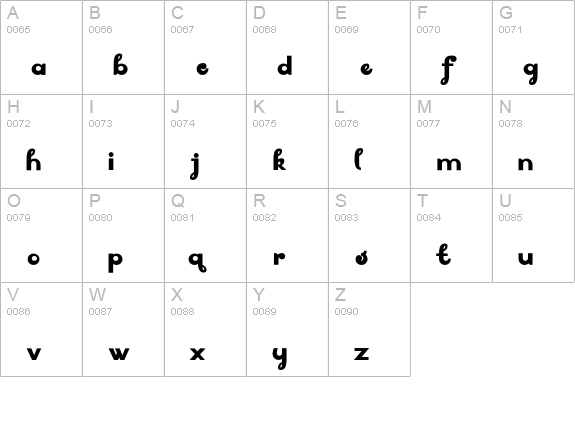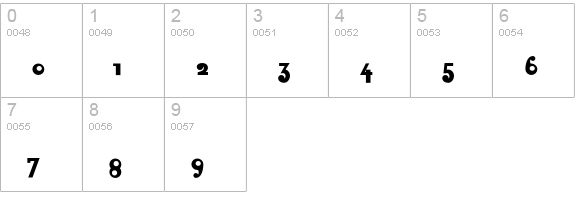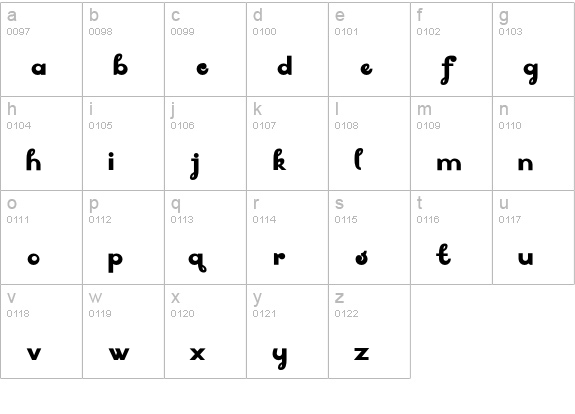
Introducing Pussy-Extra font, a stunning typeface that exudes elegance and sophistication. With its sleek and modern design, Pussy-Extra is perfect for a wide range of design projects, from branding to editorial design. This versatile font features clean lines and distinctive curves that add a touch of flair to any text. What sets Pussy-Extra font apart is not only its striking appearance but also the fact that it is completely free to download. That's right, you can get your hands on this gorgeous font at no cost at FontsMarket.com. Whether you're a seasoned designer looking to add a fresh new font to your collection or a budding creator searching for the perfect typeface for your next project, Pussy-Extra font is sure to impress. Download it today and elevate your designs with this exceptional font.